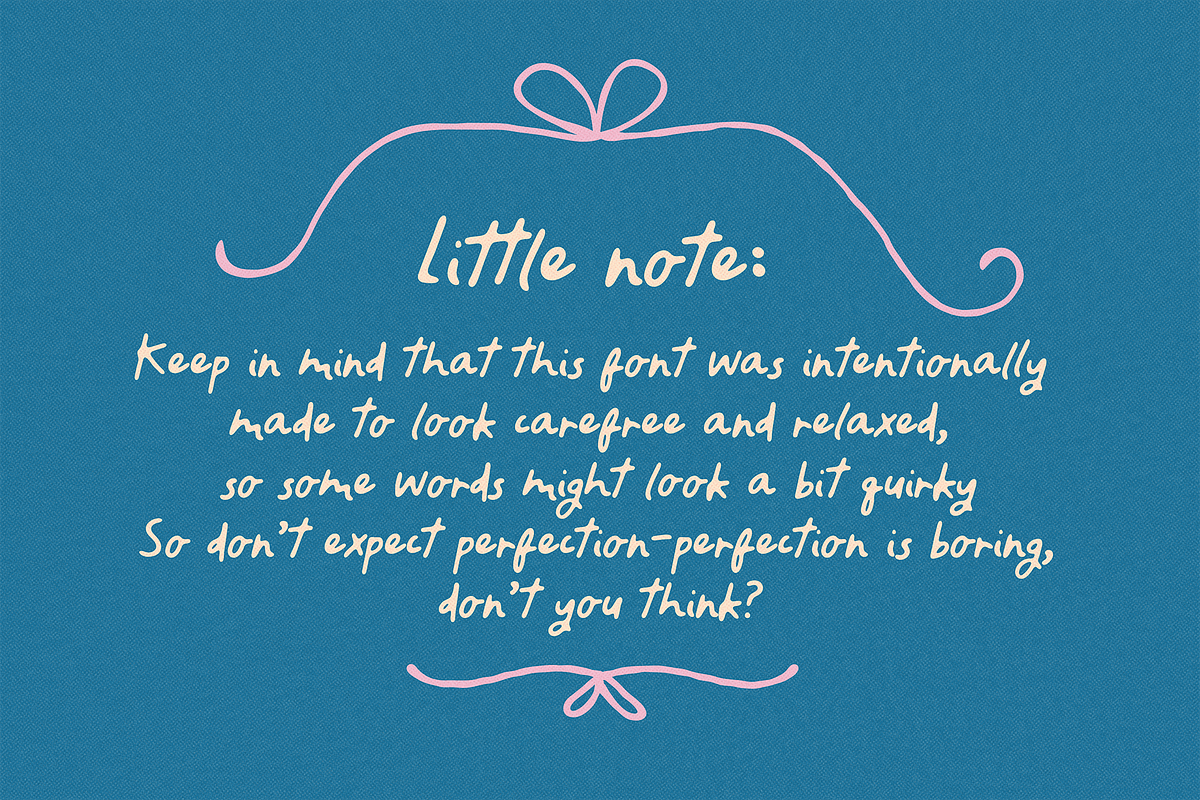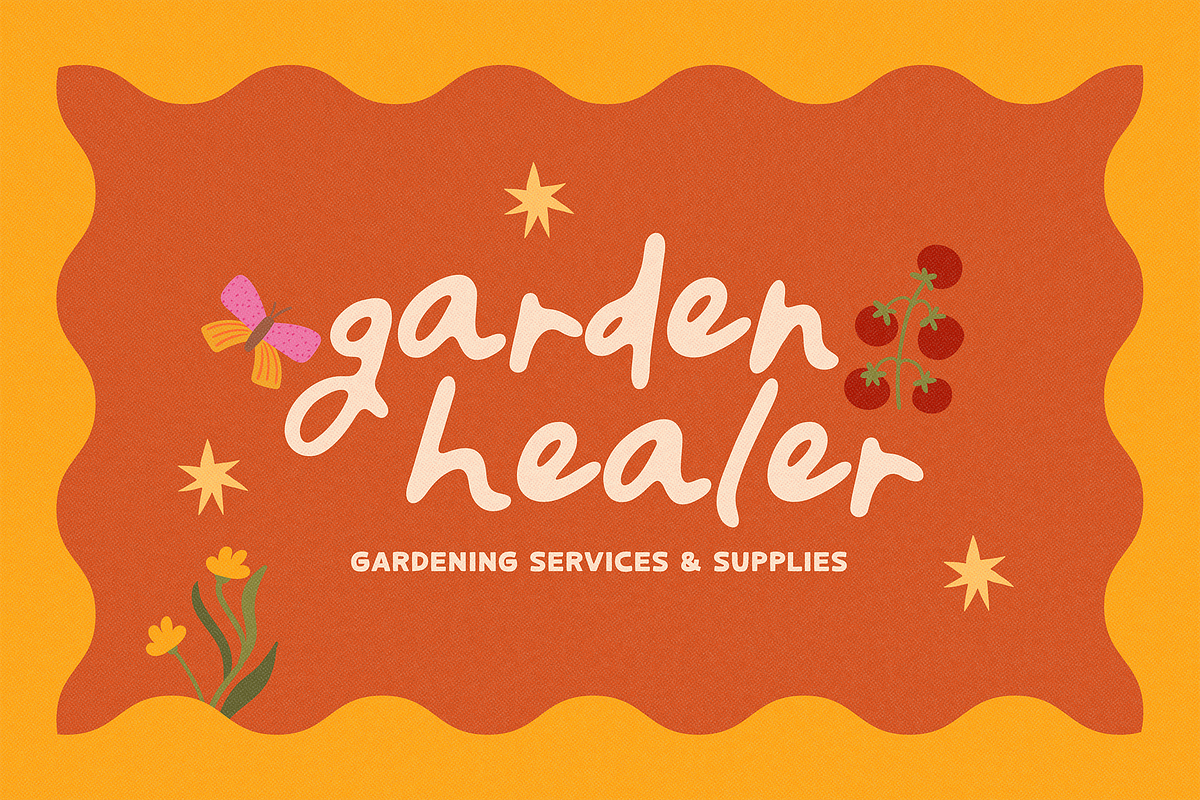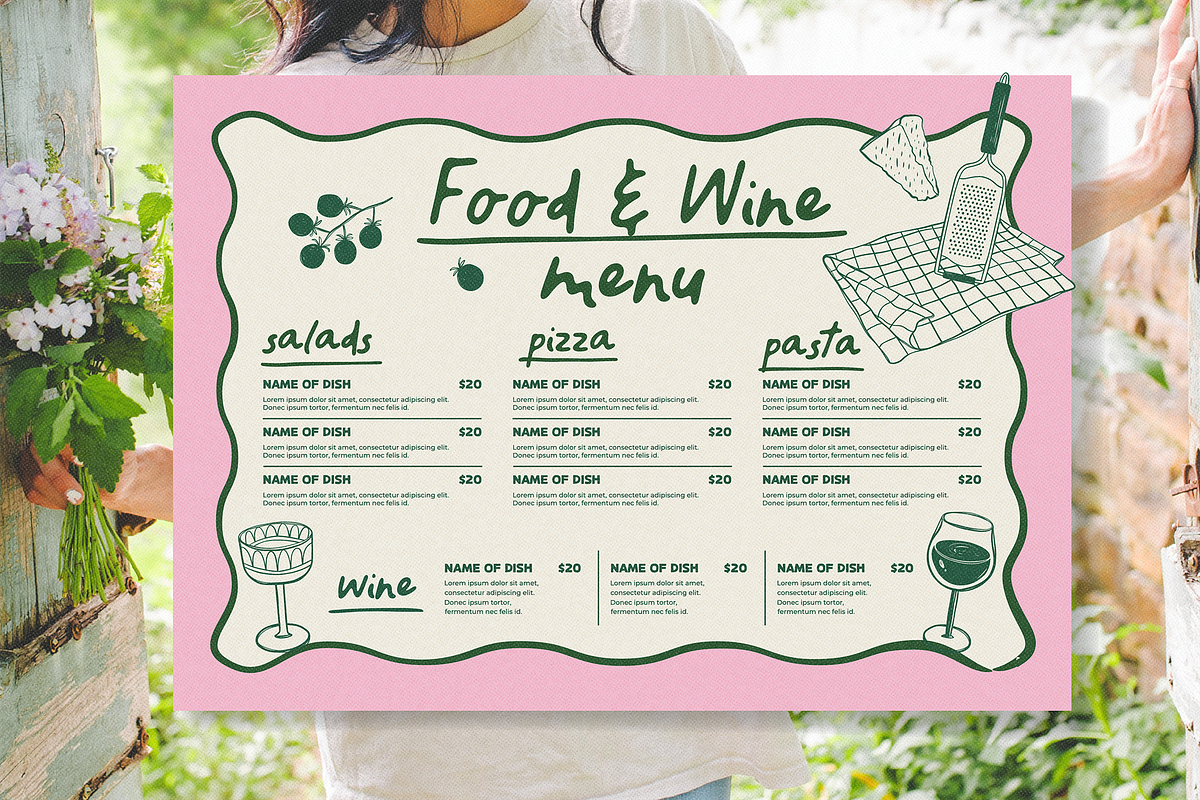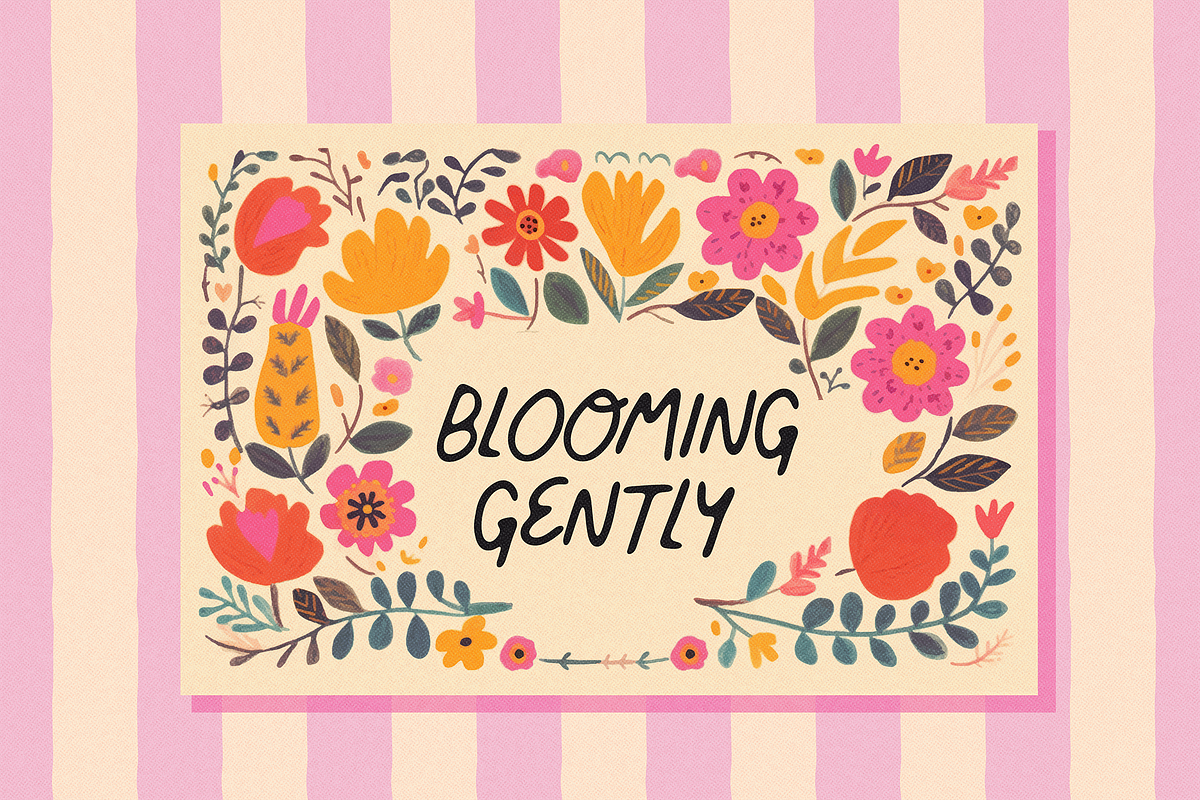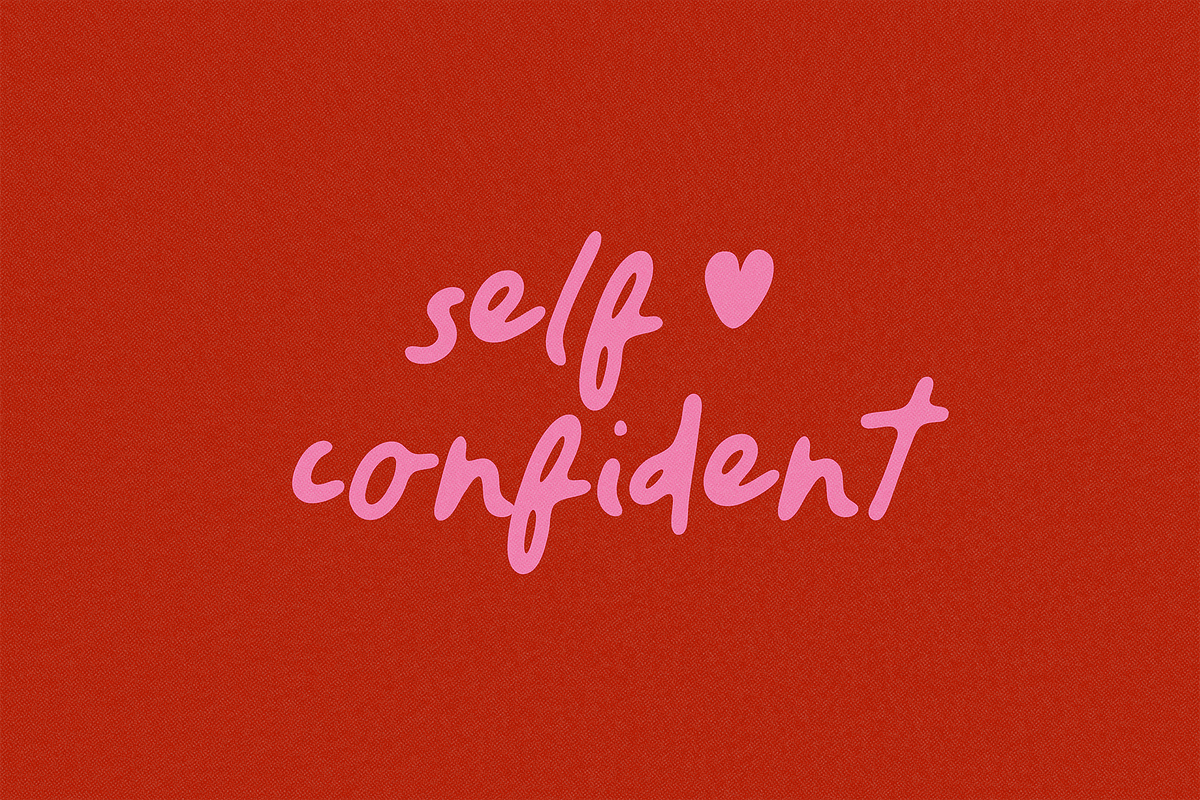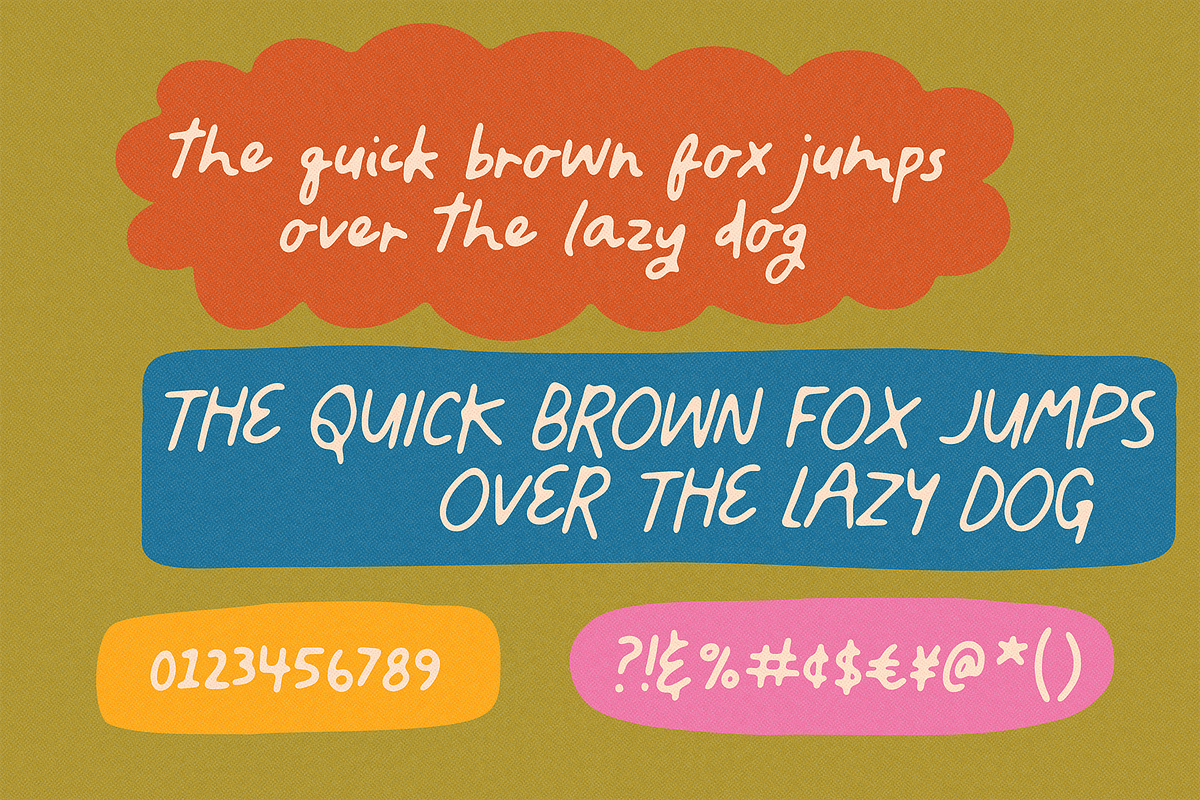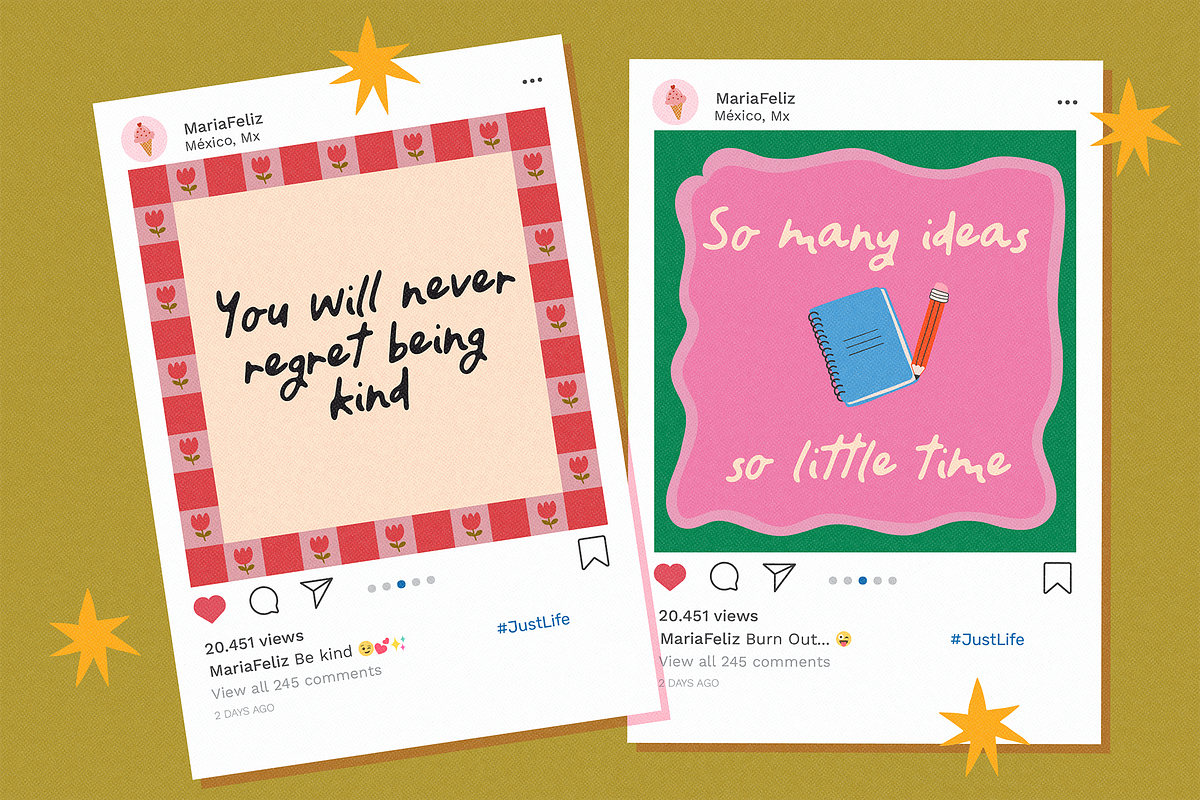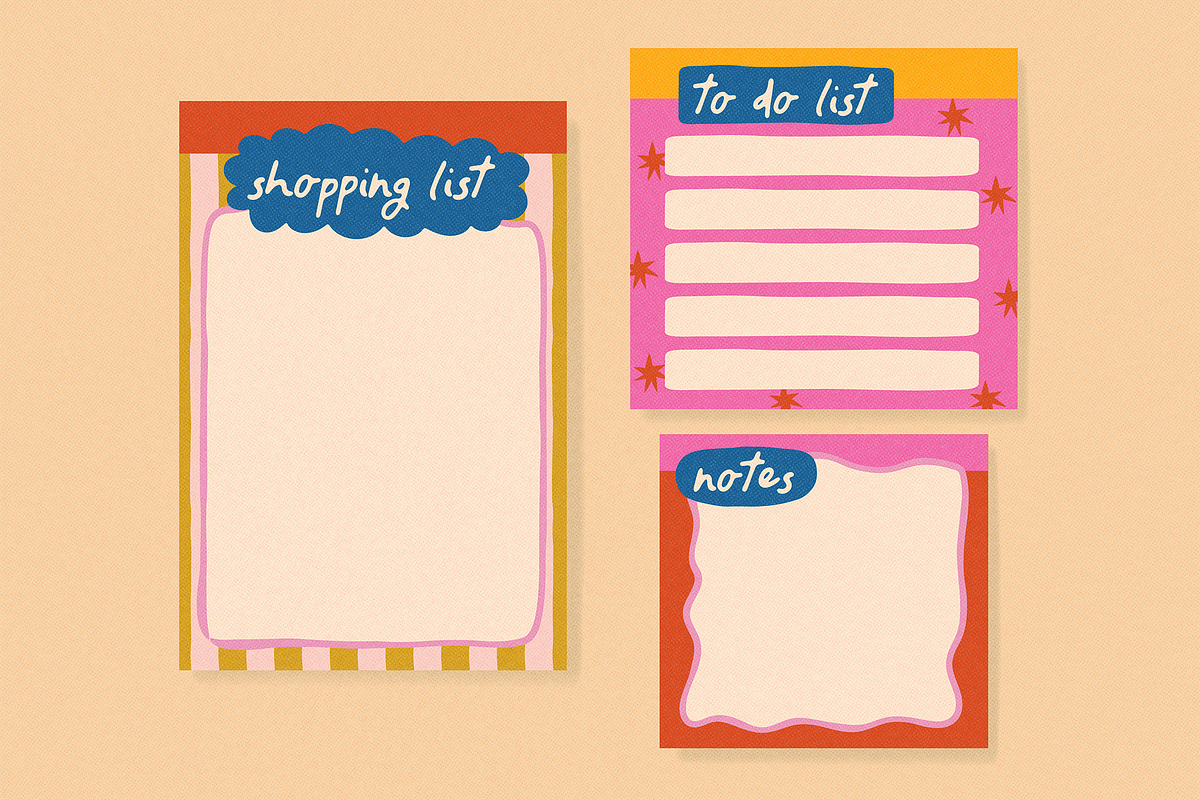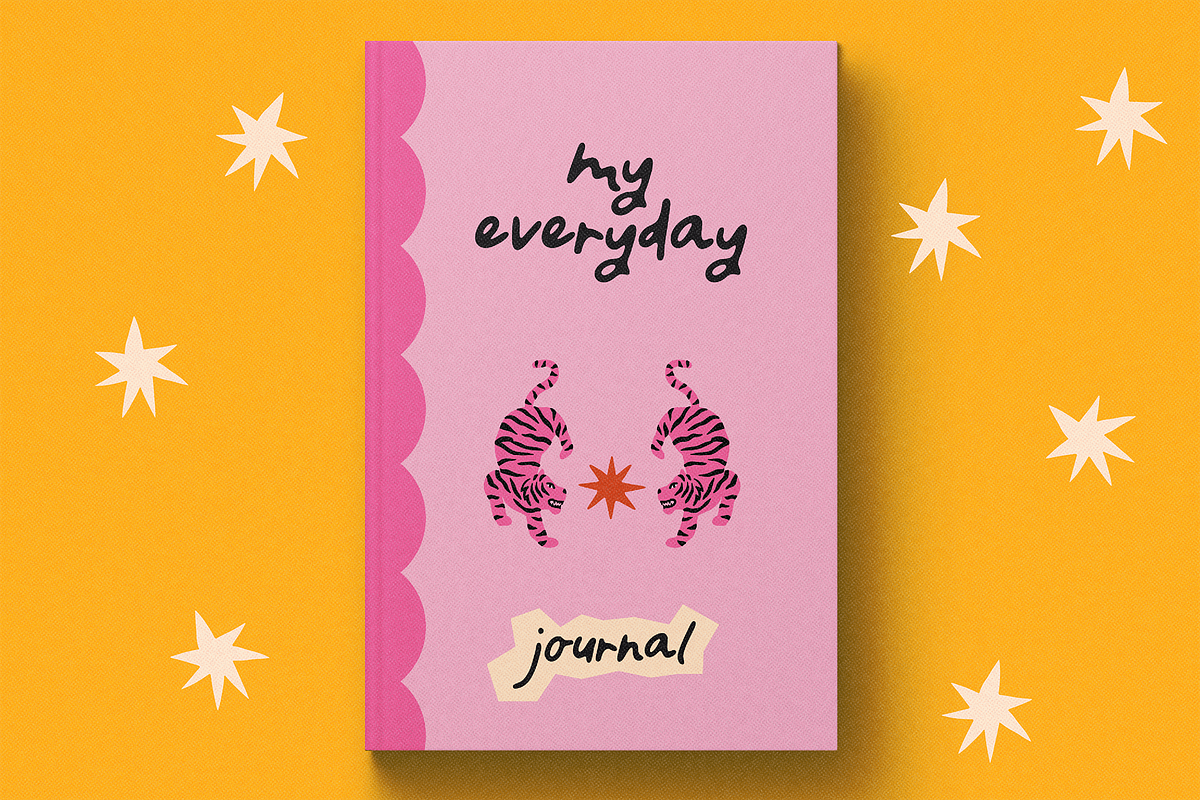
KEEP GOING | QUIRKY HANDWRITTEN FONT
Keep Going is a bold and quirky handwritten display font that embraces imperfection with charm. With its uneven strokes and organic feel, this font captures the spontaneity of real handwriting — making every word feel personal and expressive.
It’s imperfect, organic, and irregular, but at the same time full of personality. This font is ideal for short phrases on posters (like the trendy ones), to highlight titles (like in the “menu” example), to create merch, and you can even use it for your social media.
✨ A few simple ligatures add a natural touch, helping your text flow more like real lettering.
✷ Use the 4 symbols included to make cute/cool compositions.
- Left curly bracket { – Uppercase "O" alternate
- Right curly bracket } – Star
- Left square bracket [ – Shine
- Right square curly bracket ] – Heart
🖐️ NOTE: "Keep Going" isn’t about perfection — it’s about personality. Let your creativity flow and bring your messages to life with this expressive, hand-drawn font 💛